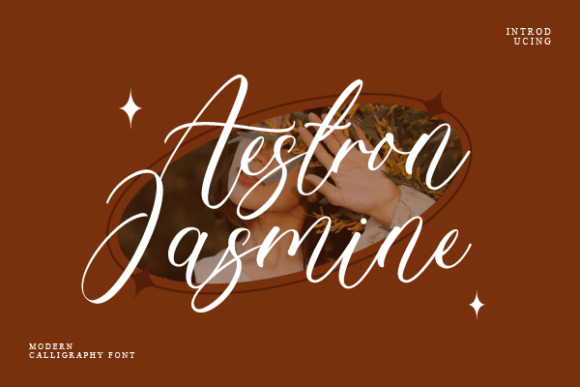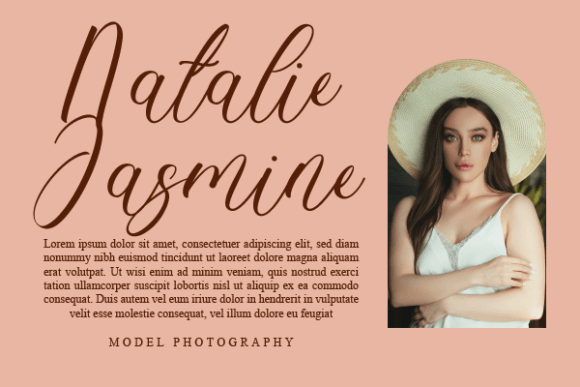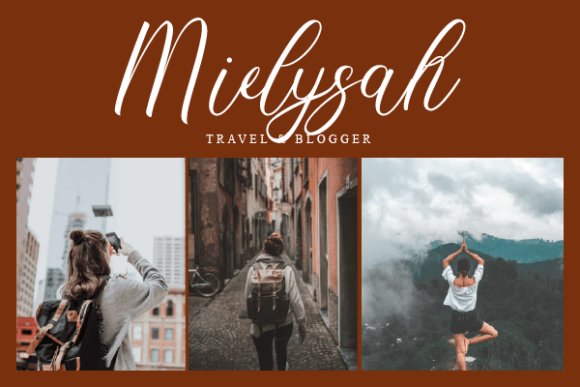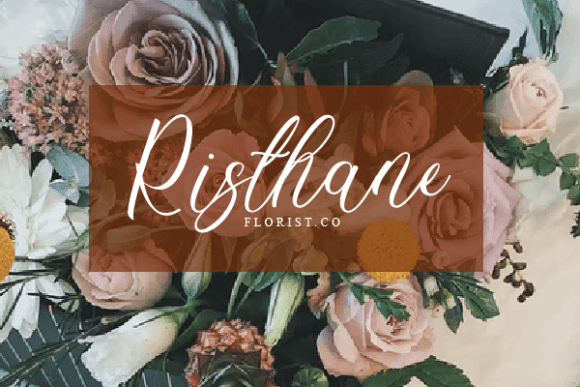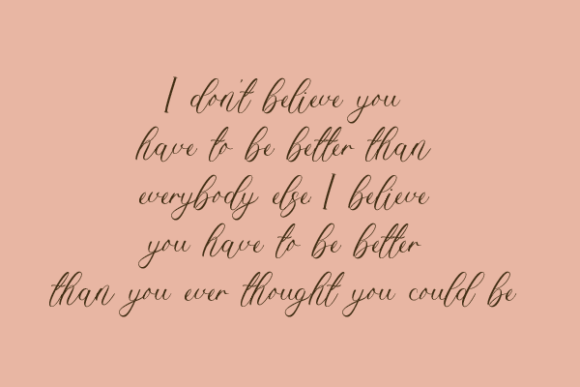
Aestron Jasmine Font
About Aestron Jasmine Font
“Aestron Jasmine” presents letters that are perfect for a variety of design applications. This versatile font is well-suited for wall displays, wedding invitations, social media post logos, advertisements, product packaging, product designs, labels, photography, watermarks, invitations, stationery, and any project that requires a handwritten touch.
The distinctive charm of “Aestron Jasmine” adds a handwritten taste to your designs, creating a personalized and artistic feel. Whether you’re working on wedding-related materials or branding projects, this font becomes a valuable asset, contributing to the overall aesthetic with its unique and engaging character.
Imagine the impact of “Aestron Jasmine” on your design projects—it becomes a key element that elevates your creations. From social media posts to product packaging, the handwritten style of this font adds a touch of authenticity and warmth to your visual expressions.
Incorporate “Aestron Jasmine” into your design toolkit and explore the creative possibilities it offers. Let its handwritten charm be the defining feature that enhances your projects, ensuring that each letter contributes to the overall appeal of your designs.